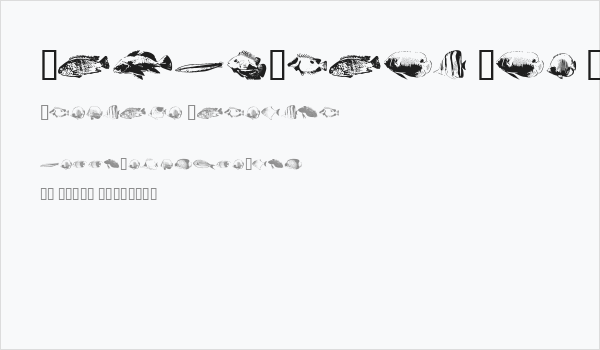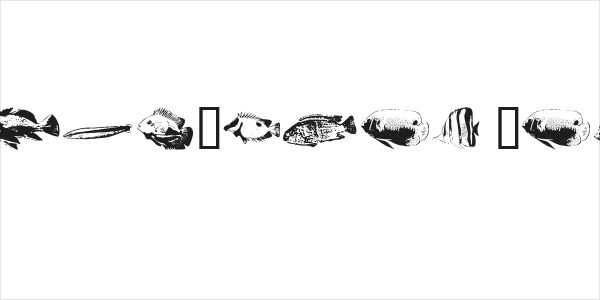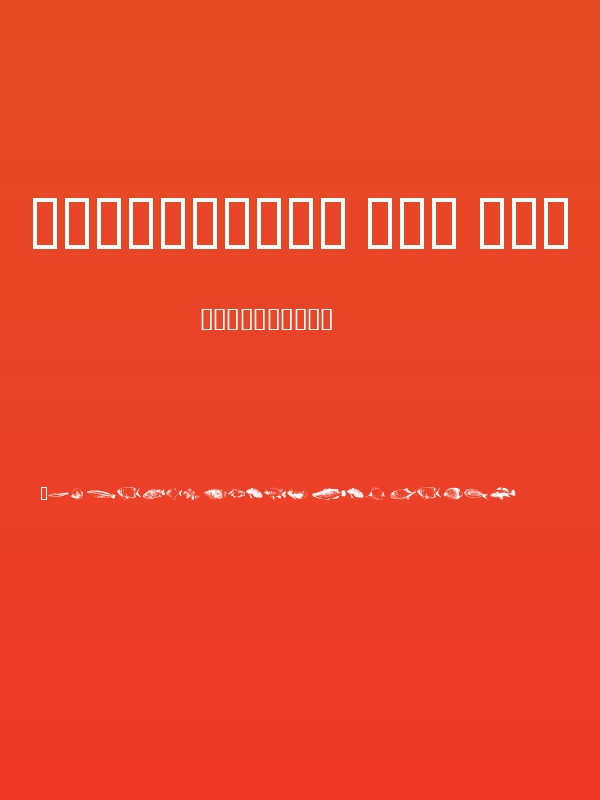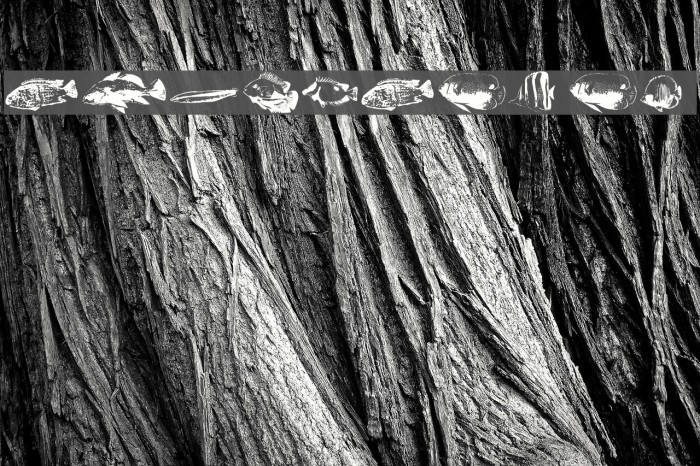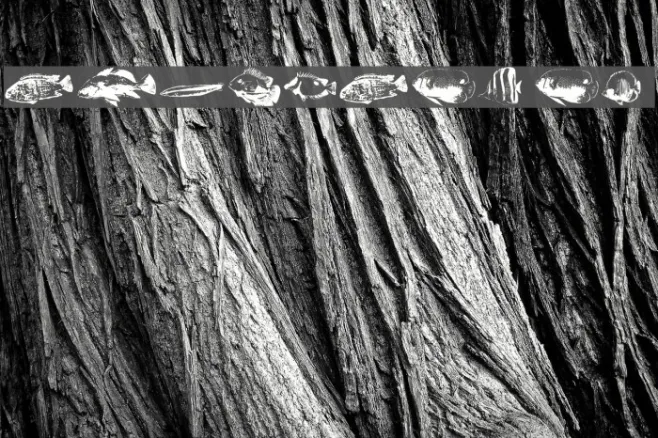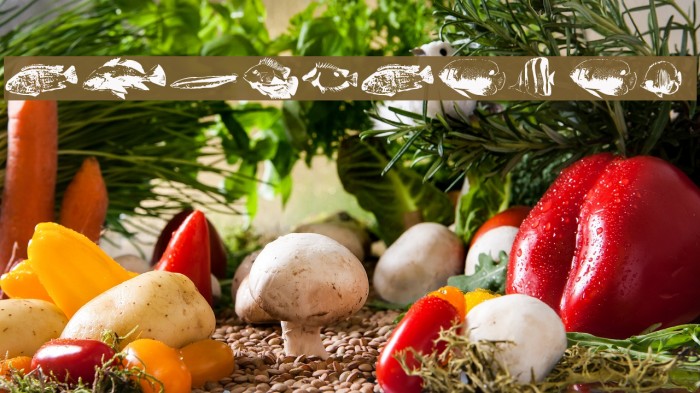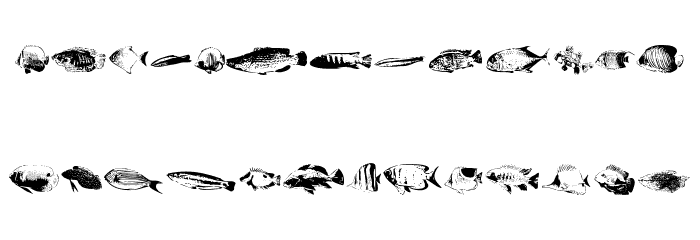
FishyPrint One AOE Font
FishyPrint One AOE Description
A highly decorative font where each character is represented by a detailed black and white fish illustration, giving a naturalistic and aquatic feel. The glyphs are unique, with each letter or symbol depicted as a different fish species, making the font visually engaging and thematic.
| Overall Style | Decorative, Thematic, Naturalistic |
| Use Case | Logos, Posters, Themed Headlines, Educational Graphics |
| Proposed Projects | Aquarium branding, children's books, marine-themed posters, educational materials, event invitations for aquatic events. |